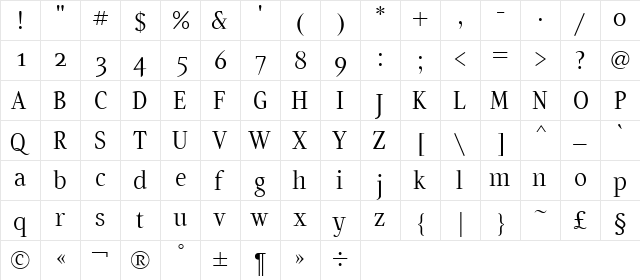
Artemius SN Light Regular
| Foundry | Letterhead studio especially for ArtLebedev Group. Created by Yuri Gordon |
Design Context for Artemius SN Light Typeface
Artemius SN Light is a composed and adaptable typeface that performs quietly and consistently across a wide range of design contexts. The delicate stroke weight brings airiness and refinement to layouts.